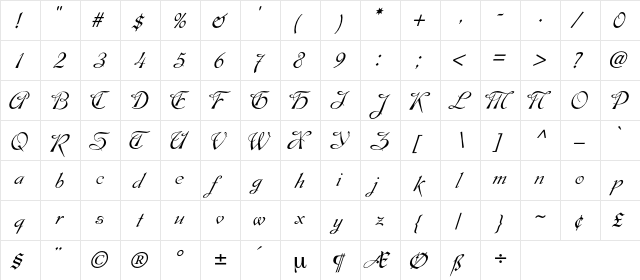
Esperanza Regular
Design Context for Esperanza Typeface
Esperanza is a composed and adaptable typeface that performs quietly and consistently across a wide range of design contexts.